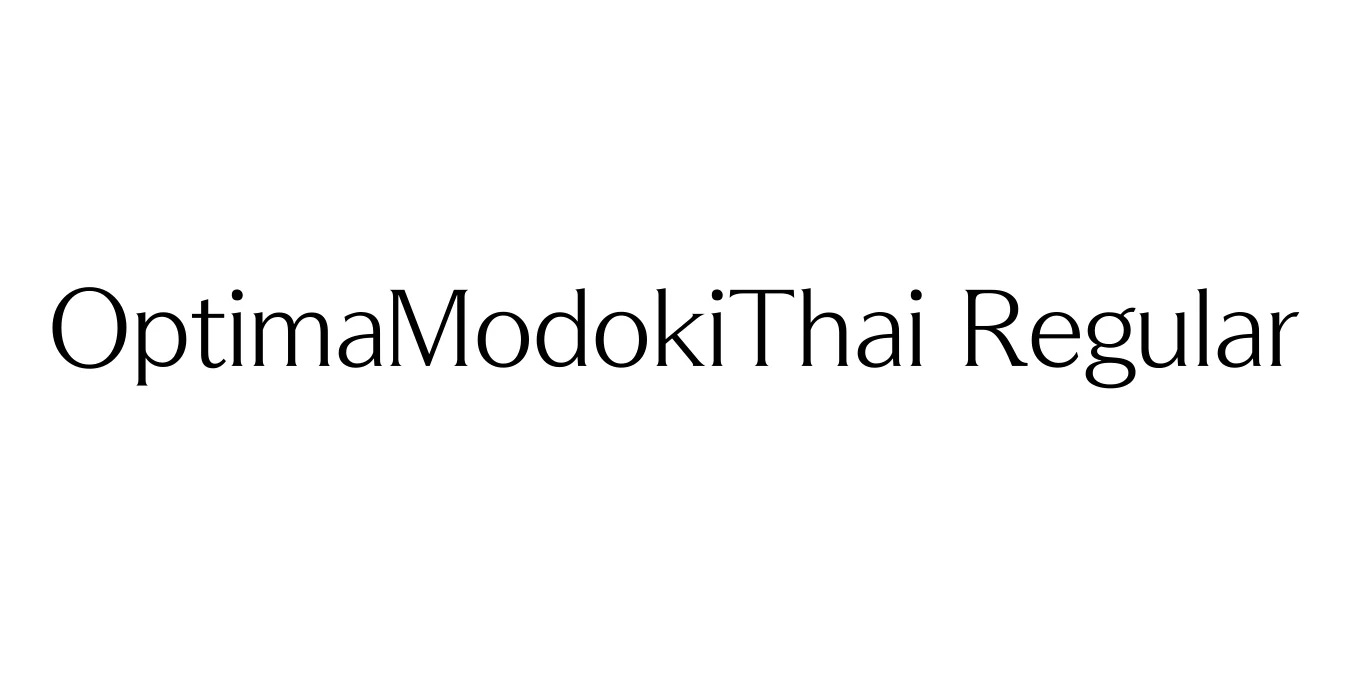
OptimaModokiThai Regular
Designed by Hermann Zapf & Independent Thai Type Designers
| Font Name | OptimaModokiThai |
| Category | Humanist Sans Serif |
| Designer | Hermann Zapf & Independent Thai Type Designers |
OptimaModokiThai Regular is a refined adaptation of the legendary Optima typeface, originally conceived by Hermann Zapf. This version extends the classic humanist sans-serif aesthetic to the Thai script, preserving the signature stroke modulation and flared terminals that give the original its unique calligraphic soul. By blending the characteristics of both serif and sans-serif styles, this font provides a high level of sophistication and clarity for bilingual Thai-Latin compositions.
The design philosophy of OptimaModokiThai Regular focuses on balance and legibility. The Thai glyphs are constructed to match the visual weight and elegance of the Latin characters, making it an excellent choice for corporate branding, high-end editorial design, and professional documentation. Its timeless appearance ensures that it remains effective across both traditional print media and modern digital interfaces, offering a touch of class to any typographic project.
OptimaModokiThai Regular Best Uses
Establishing a professional and trustworthy brand image.
Enhancing the readability and style of magazines and journals.
Providing a clean and sophisticated look for high-end websites.
Creating elegant brochures, flyers, and promotional content.